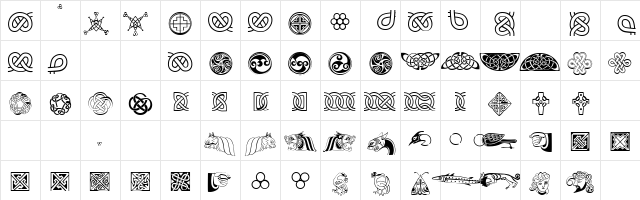
Kells Extras Free Font
Kells Extras
Style: Extras
Design Context for Kells
Kells is a composed and adaptable typeface that performs quietly and consistently across a wide range of design contexts.